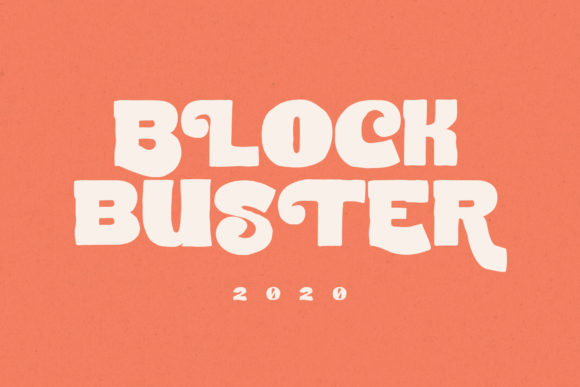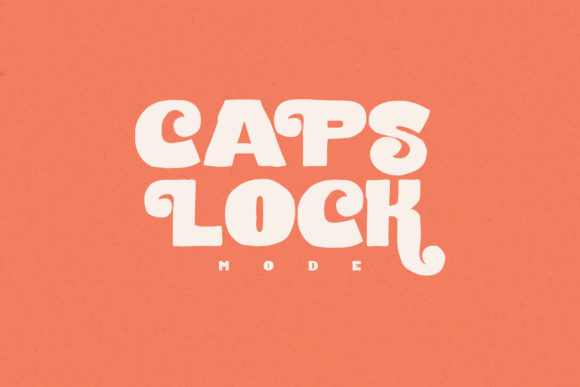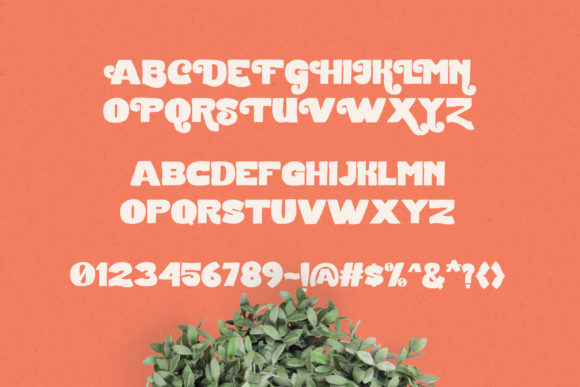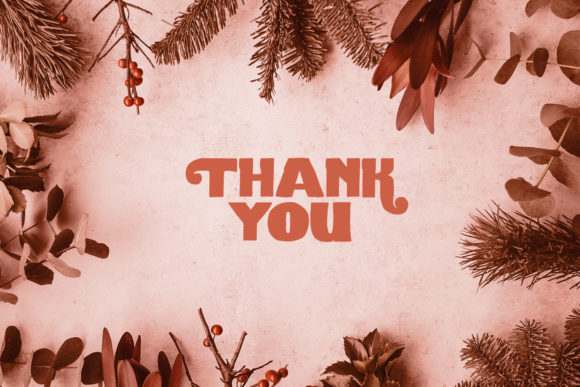
Introduction to Path Black Font
PATH BLACK Typeface is Display Font, Unique font and BOLD.
Can make it easier to convey the message in your design Use for awesome display, Logo, labeling, clothing, movie screen, poster, movie title, gigs, album covers, logos, and much more.
Key Features of Path Black Font